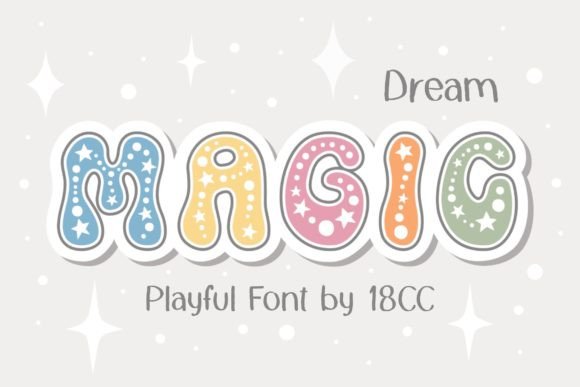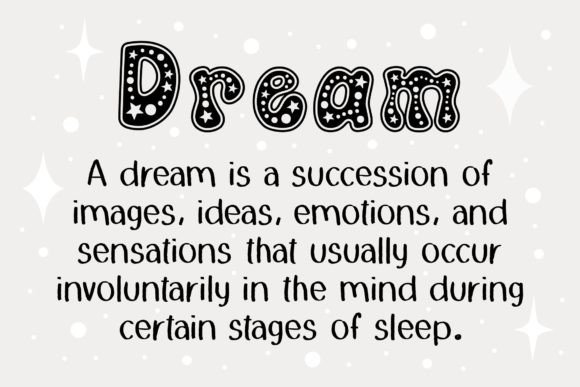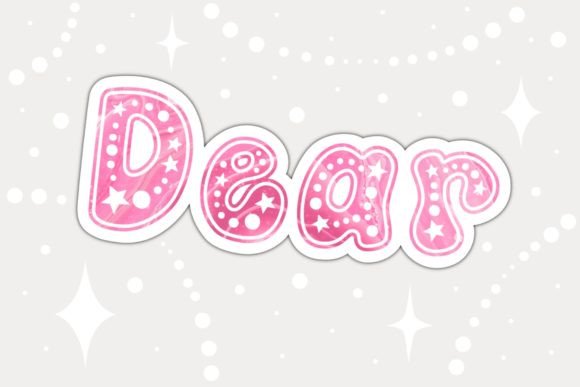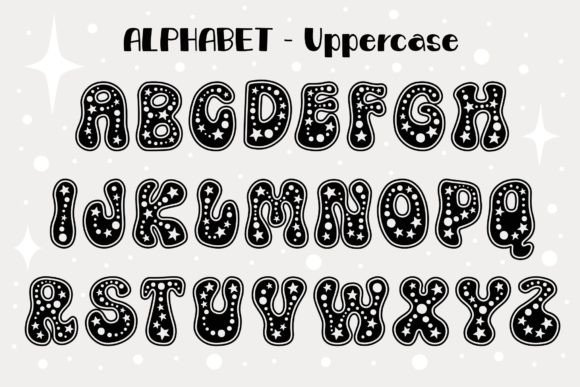
Magic Dream Font: A Cute Display Font for Playful Designs
About the Magic Dream Font
Discover the charm of Magic Dream Font. This font is a perfect blend of modern aesthetics and classic appeal. Magic Dream is a playful font. This font is the perfect fit for all of your t-shirt, logos, branding, social media, crafty DIY projects, and much more!
Magic Dream’s playful energy makes it ideal for headlines, logos, and short-form text in branding projects, social media graphics, and packaging where a whimsical touch is desired. It works exceptionally well for children’s products, playful brands, and projects focusing on fun and creativity. Avoid using it for large blocks of body text or UI elements; its informal nature detracts from readability in such contexts.
Consider pairing Magic Dream with a clean sans-serif like Open Sans for a balanced contrast, or a more geometric sans-serif such as Montserrat for a modern feel. For a touch of elegance, a subtle serif like Lora could complement its playful curves. Avoid pairing it with overly decorative or script fonts, which would create visual clutter.
Magic Dream projects a friendly and approachable personality, perfect for brands that value lightheartedness and creativity. Its distinct character will add a unique charm to projects targeting a younger demographic or those seeking a fun and memorable visual identity.
Magic Dream Font Usage Examples
Magic Dream Font Example